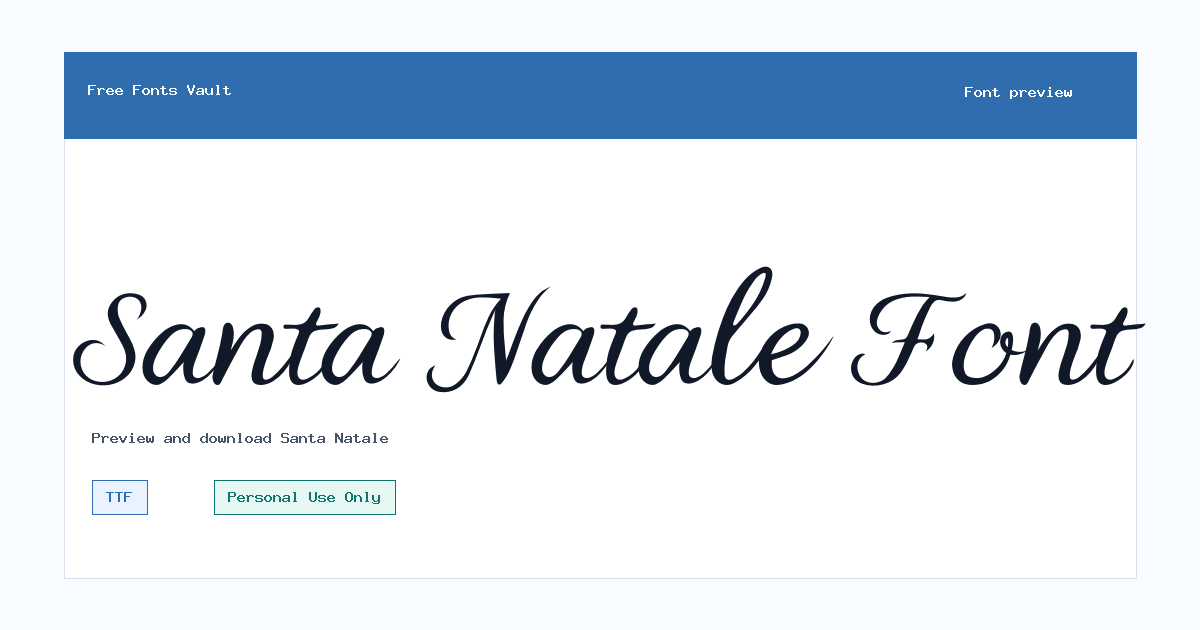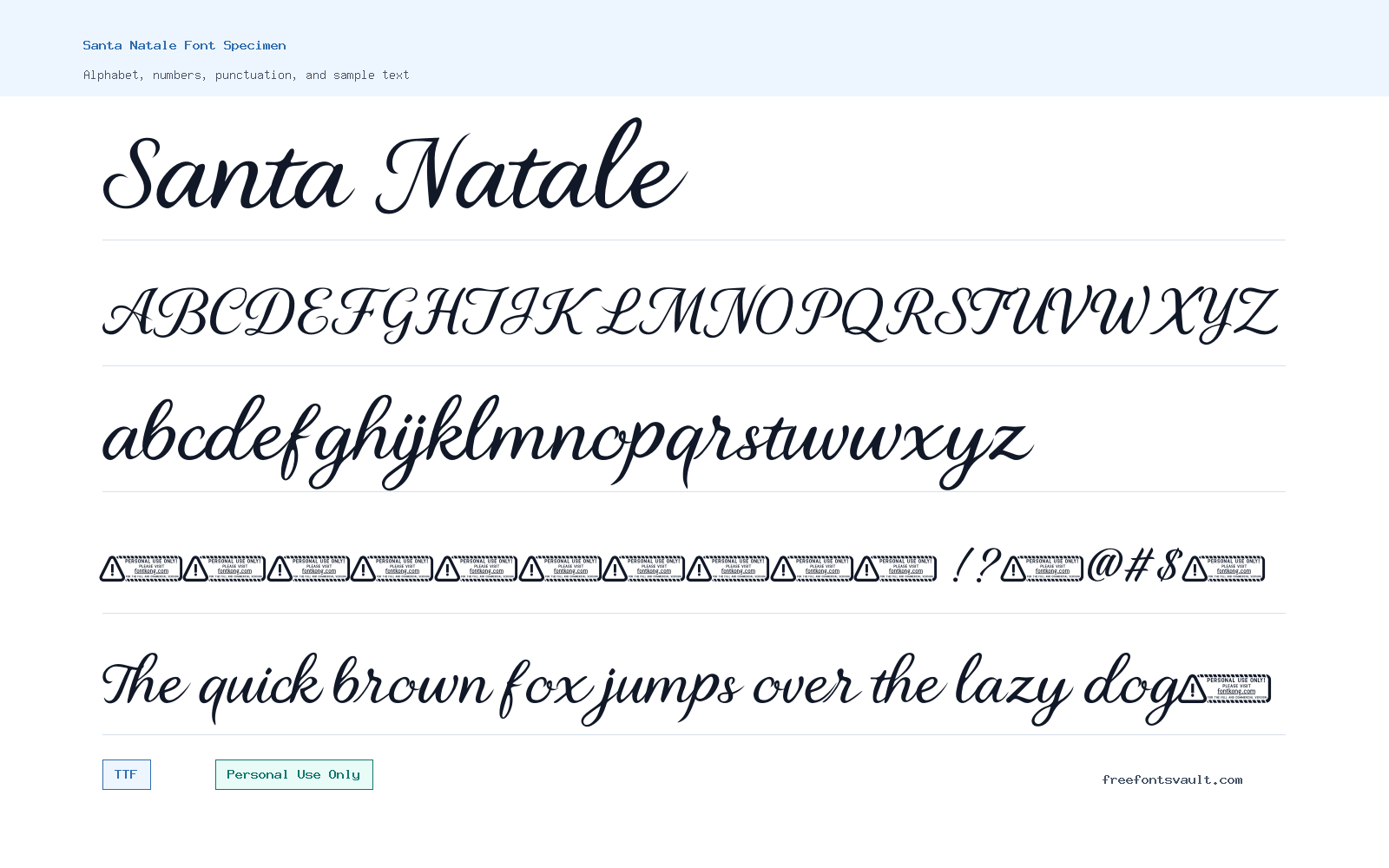
Santa Natale
Santa Natale Font
Santa Natale is a Christmas script font with a decorative, handwritten feel. It is best suited to short festive words, seasonal headlines, greeting-card text, and display layouts where the lettering can stay large and easy to read.
About Santa Natale Font
Santa Natale has the look of a holiday script: flowing strokes, soft movement, and a friendly handmade rhythm. The name and license label identify it as a Christmas script font, so it naturally fits designs built around winter celebrations, gift labels, party invitations, craft graphics, and social posts for seasonal greetings. Because it is a script style, its strength is personality rather than long-form reading. Use it where a few words need warmth and charm, not where visitors must read several lines quickly.
• Christmas-themed script style for festive display text
• Handwritten look that works best at larger sizes
• Useful for short phrases, names, labels, and greeting-style headlines
• Christmas cards and seasonal greeting graphics
• Holiday party invitations and event titles
• Gift tags, stickers, craft labels, and packaging mockups
• Social media images with short festive messages
• Decorative headings paired with a simple readable body font
Keep Santa Natale for display text rather than paragraphs. Test your exact wording in the preview, especially words with repeated letters or long names. For clearer layouts, use Santa Natale for the main festive phrase and combine it with a clean sans serif or simple serif for supporting details. Avoid setting small text, dense menus, legal copy, or long descriptions in this font, because decorative script lettering can become harder to read when reduced.
What kind of font is Santa Natale?
Santa Natale is a Christmas script font with a decorative handwritten look. It is designed for display use, especially short seasonal text.
What should I pair with Santa Natale?
Pair it with a simple sans serif or clean serif. Let Santa Natale handle the main festive word or headline, then use the plainer font for small details and longer text.